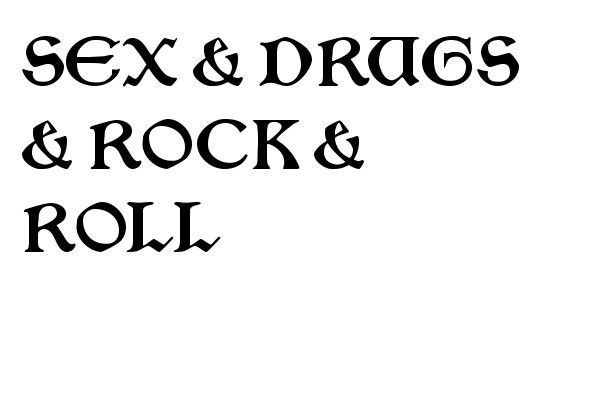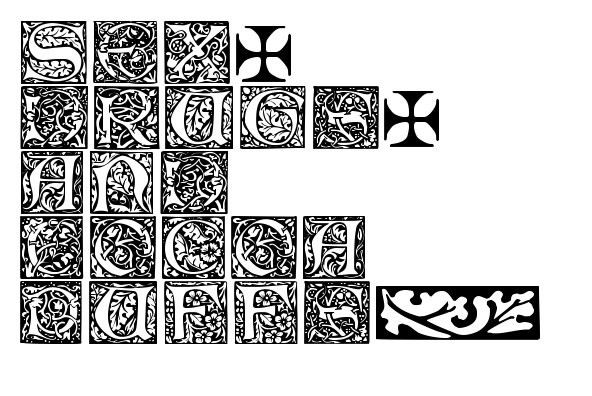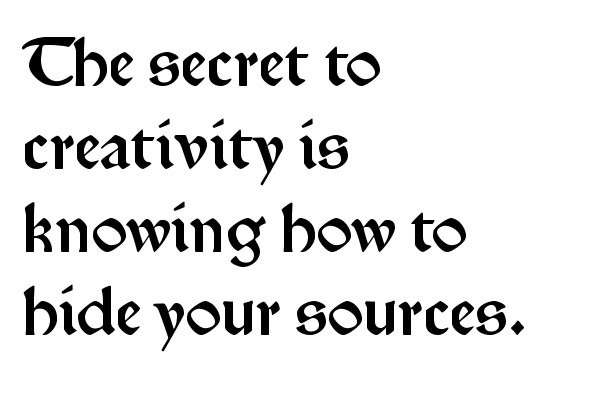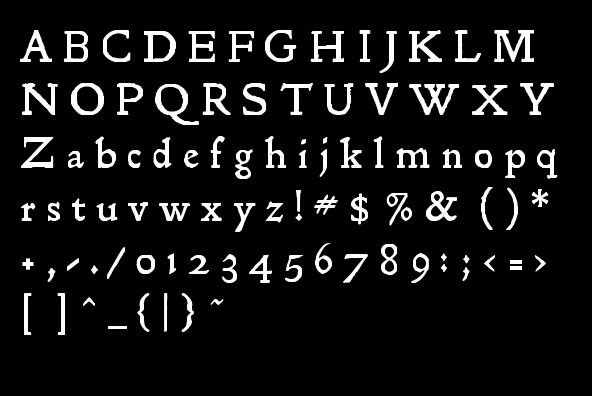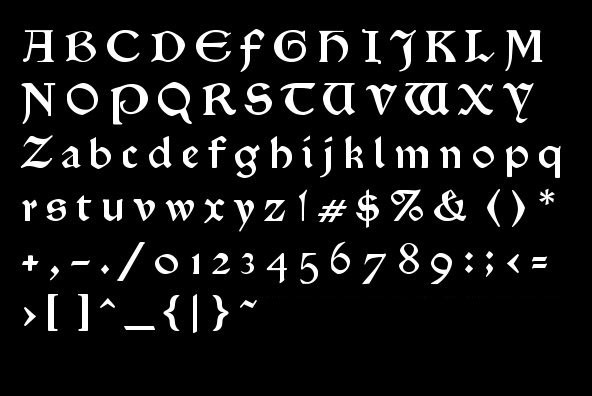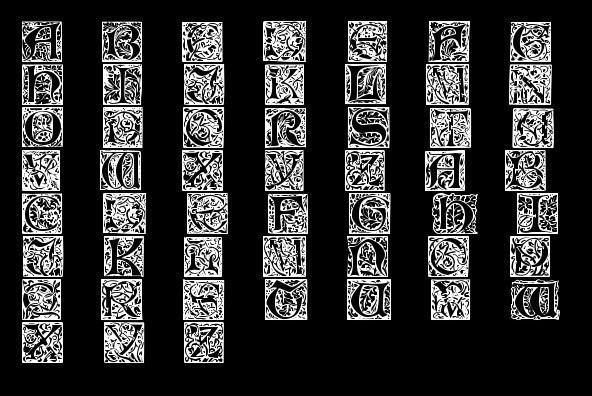
P22 William Morris Set
Foundry: P22 Type Foundry
William Morris (1834-1896) was probably the most influential figure in the decorative arts and private press movements of the late 19th and early 20th century. In reaction to the increasing lack of quality that the industrial revolution brought on, Morris sought a return to the ideals of the medieval craftsman. Dissatisfied with the commercially available typefaces of the day, he undertook the design of the fonts for his books himself.
The P22 Morris font set features new versions of Morris's famous type designs for his Kelmscott Press. The two main fonts include full international character sets for Western European languages.
P22 created MORRIS GOLDEN with a rough edge to simulate the look of printing on handmade paper. There is a more "refined" recent version of Golden, but its sterile digitization does not approach the effect that Morris achieved in his Kelmscott books. You'll notice the handmade effect less in the smaller sizes but will find it quite decorative in the larger sizes. (Morris cut his Golden type in only one size for the Kelmscott Press, approximately equal to 14 points.)
P22's version of MORRIS TROY is more smooth than Morris Golden and is true to the original Morris design. It is based on the Kelmscott Troy type (an 18 point font) and its smaller counterpart, the Chaucer type (a 12 point font). American Type Founders made an unauthorized version of Troy, "Satanick," contrary to Morris's wish that it not be made available commercially. (Legend has it that the naming of Satanick comes from William Morris telling the agent inquiring about making copies of his fonts available to go to hell) Several digital versions of Troy (and Satanick) have appeared over the years. The P22 version offers a much more accurate rendering than any previous version. Morris designed the original Troy font to be spaced very tightly; our version reflects and honors his intention.
The MORRIS ORNAMENTS are based on those Morris designed and used in his Kelmscott Press books. Characters in the positions of the letters A to Z are decorative drop cap initials. Characters in the number key positions reproduce other Morris embellishments. (See the accompanying key chart.) As with all headline fonts and complex dingbats characters, this font is best used at larger point sizes (e.g., 48, 72, 120). Use in body text or at small point sizes on-screen may not achieve desired results.